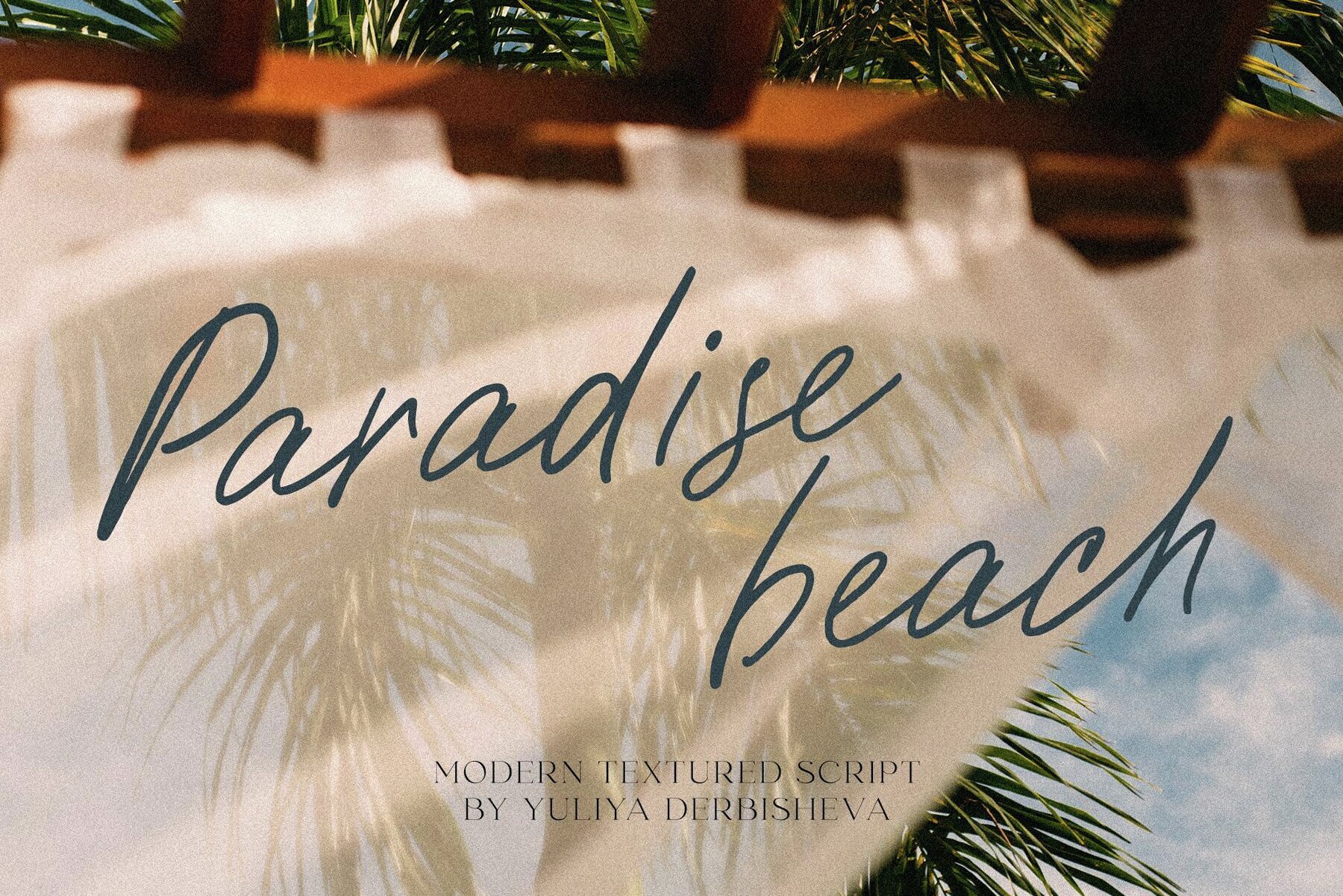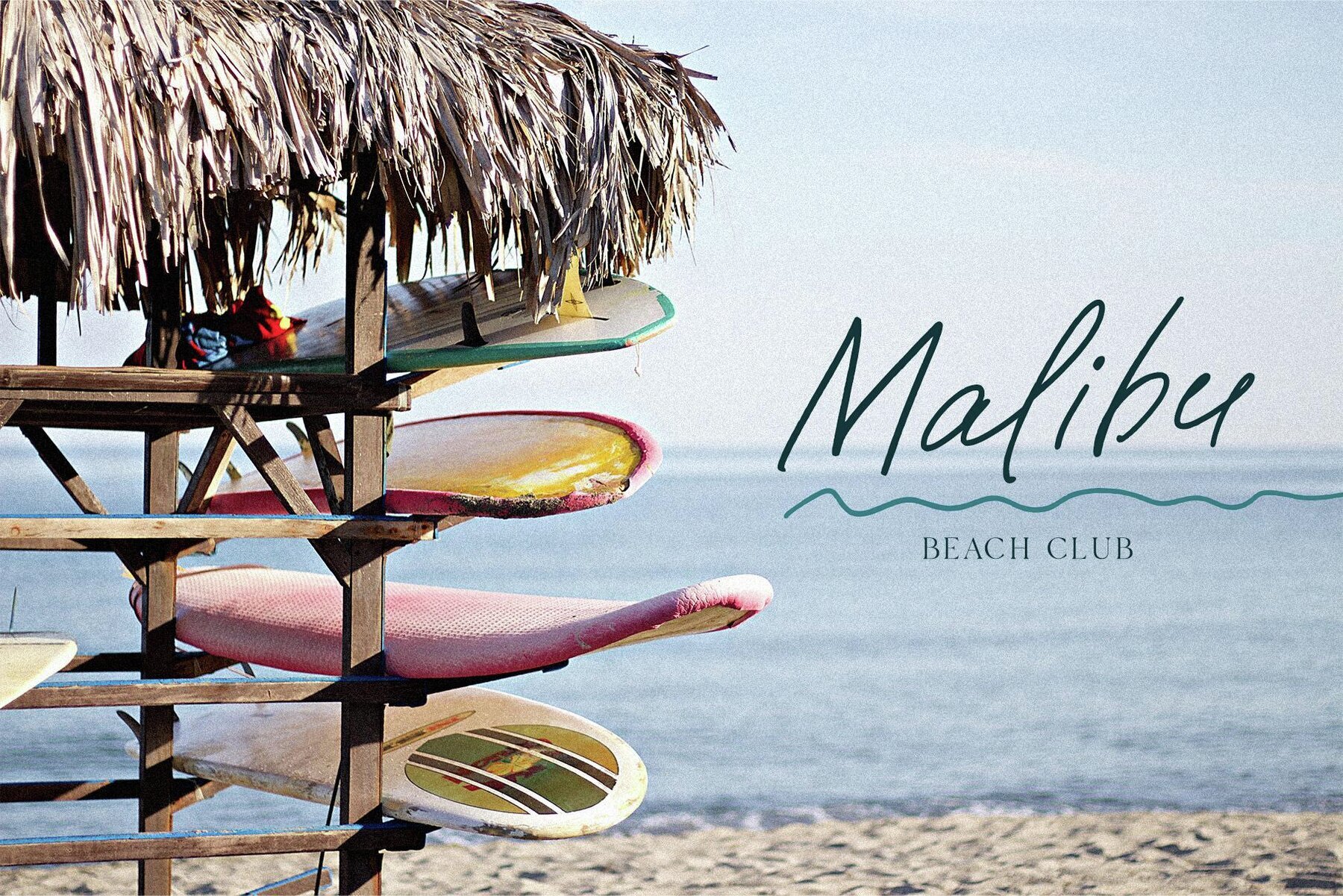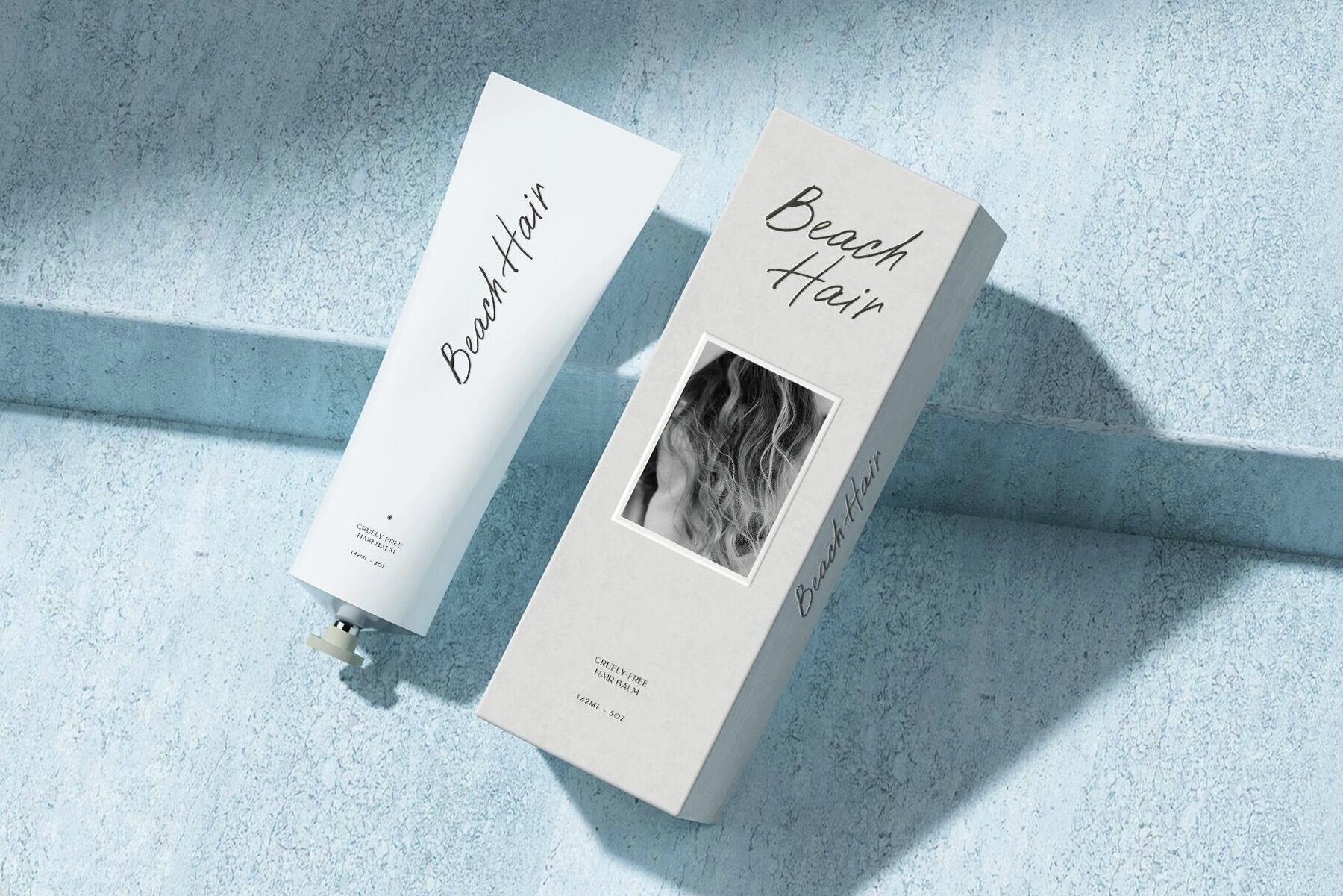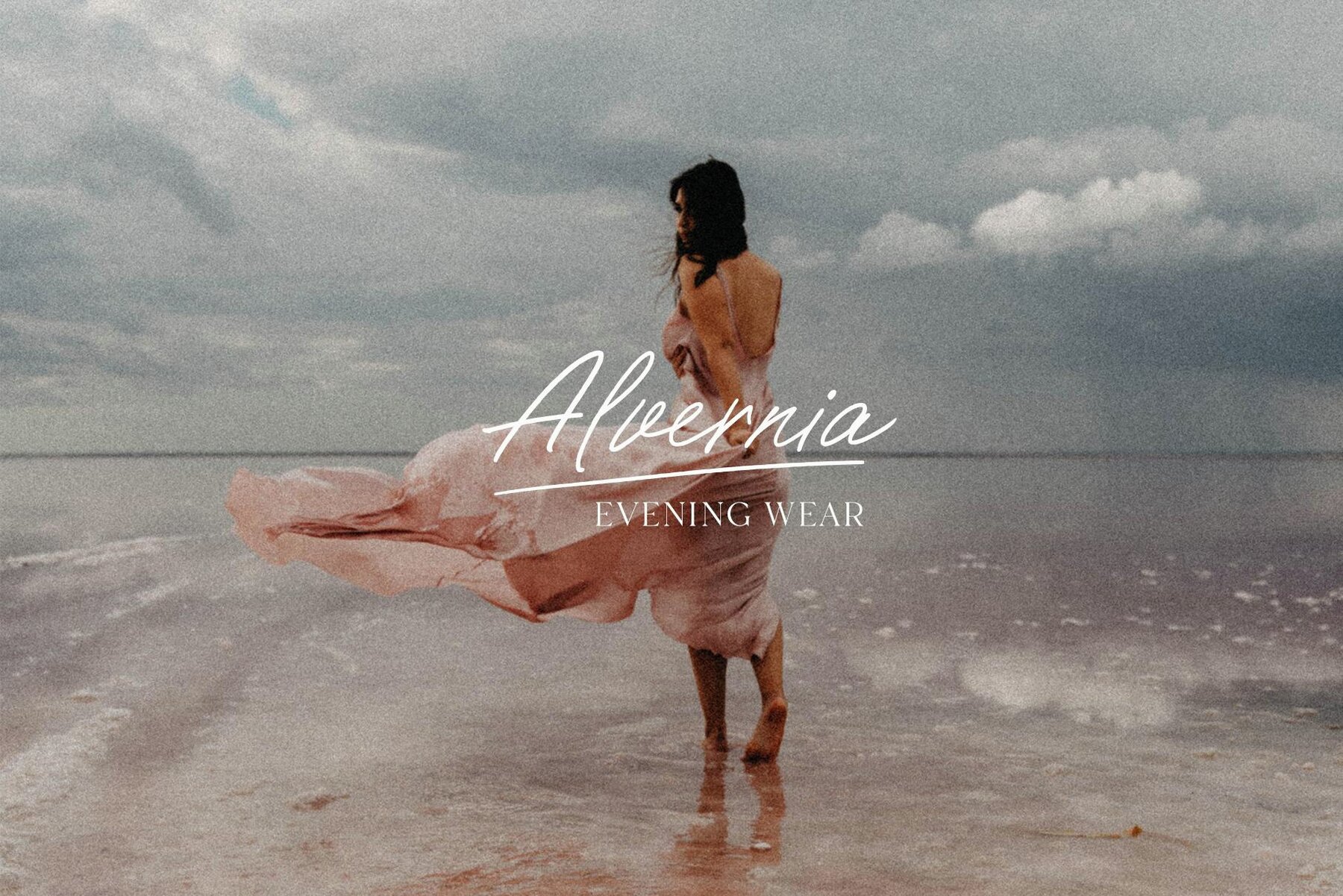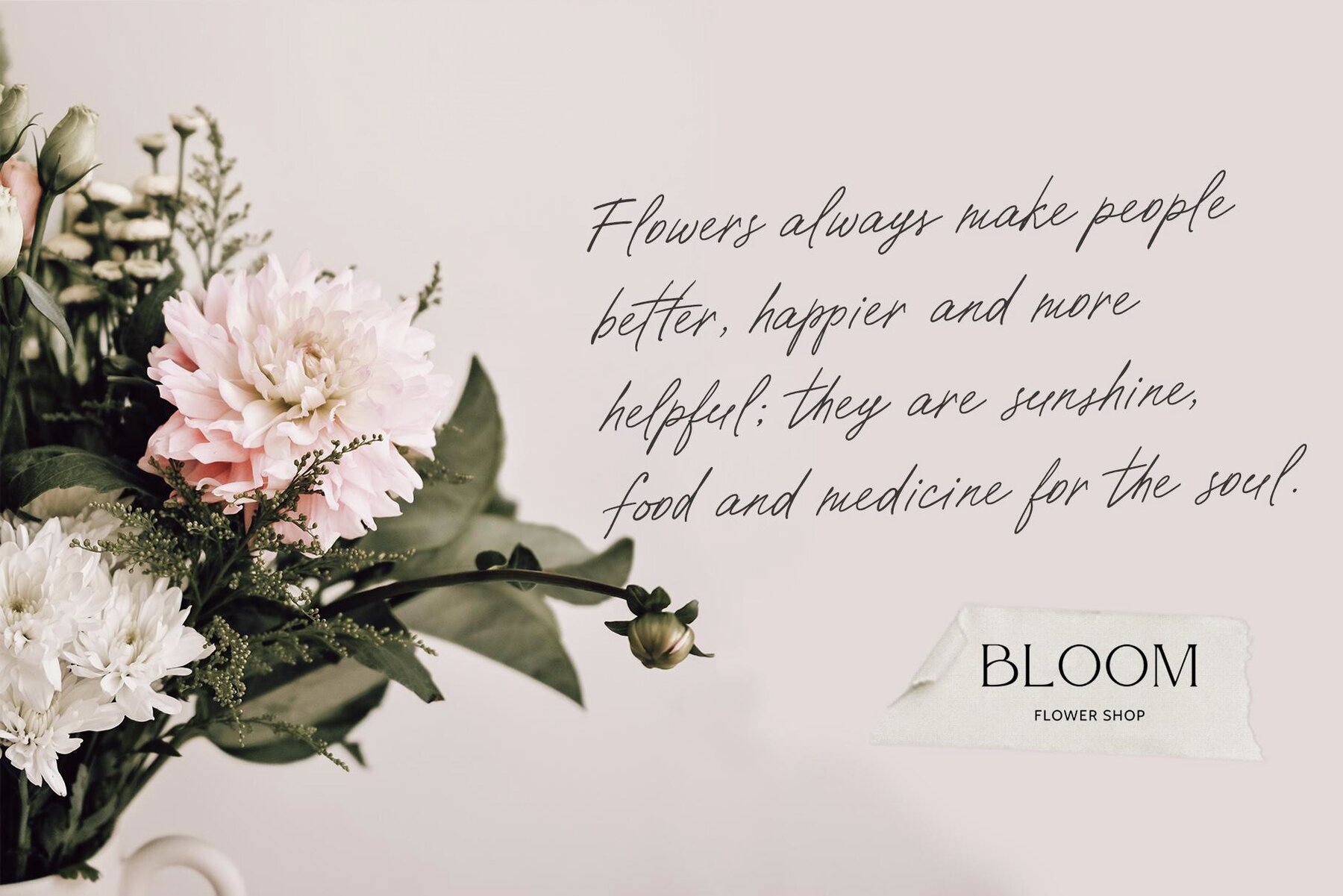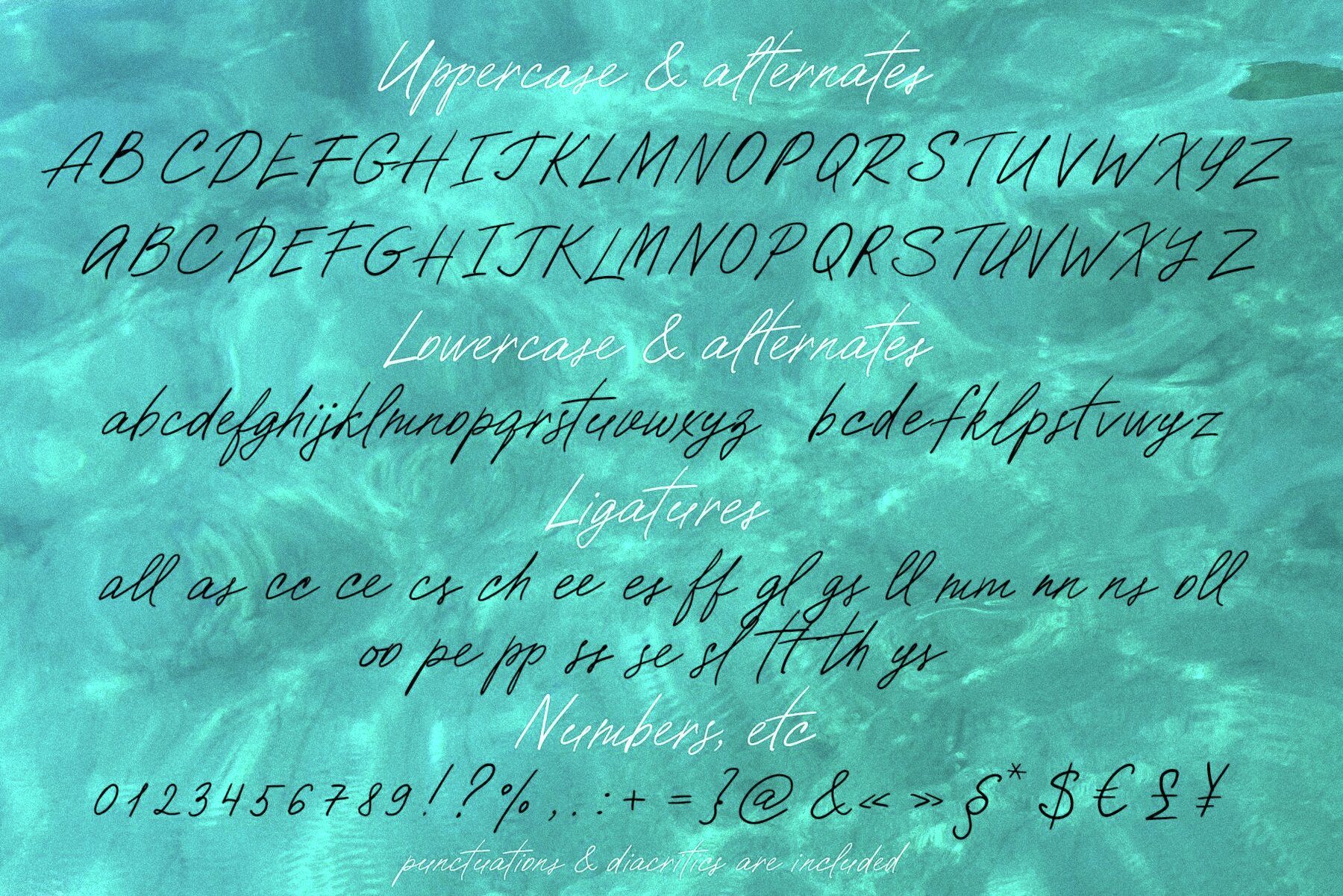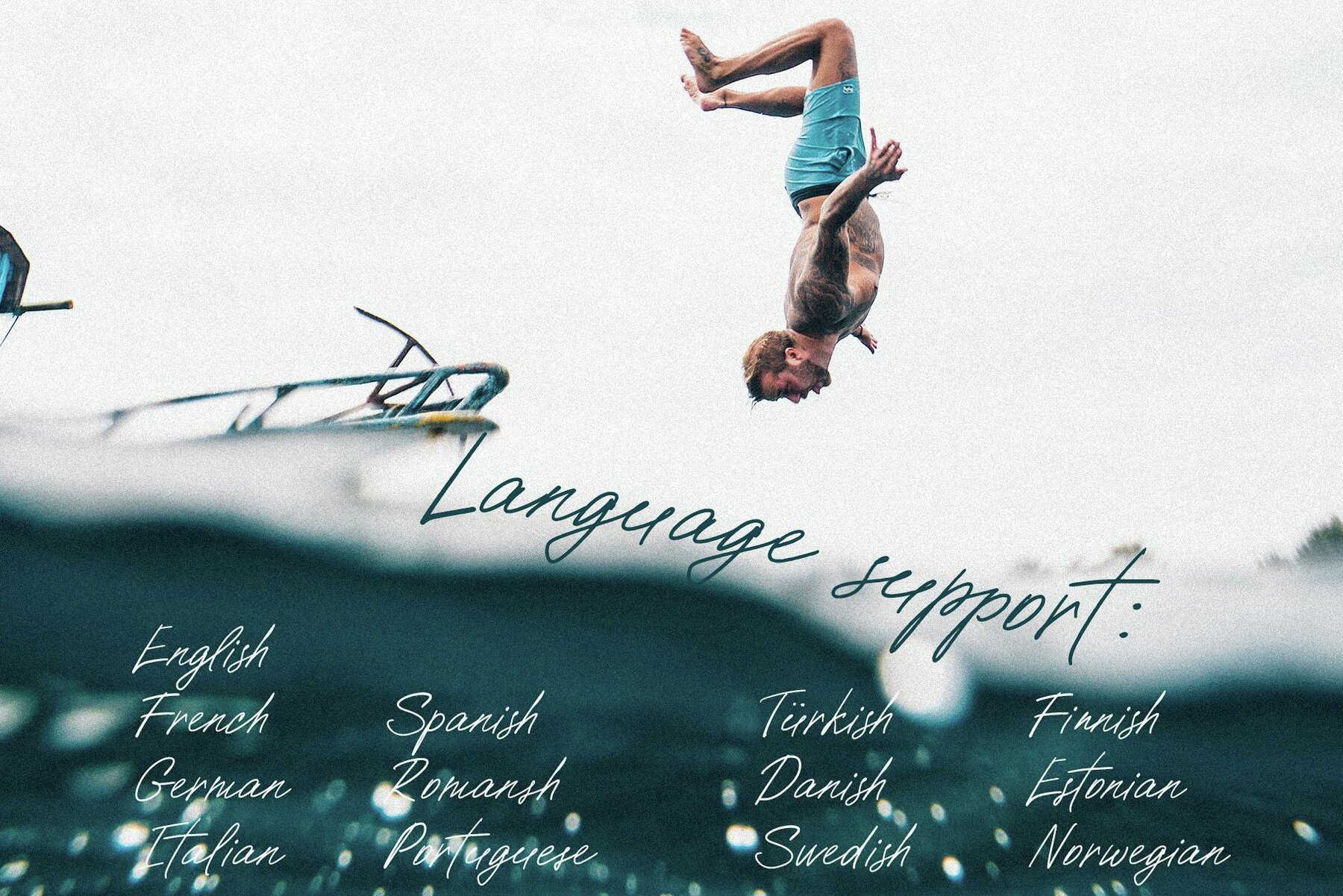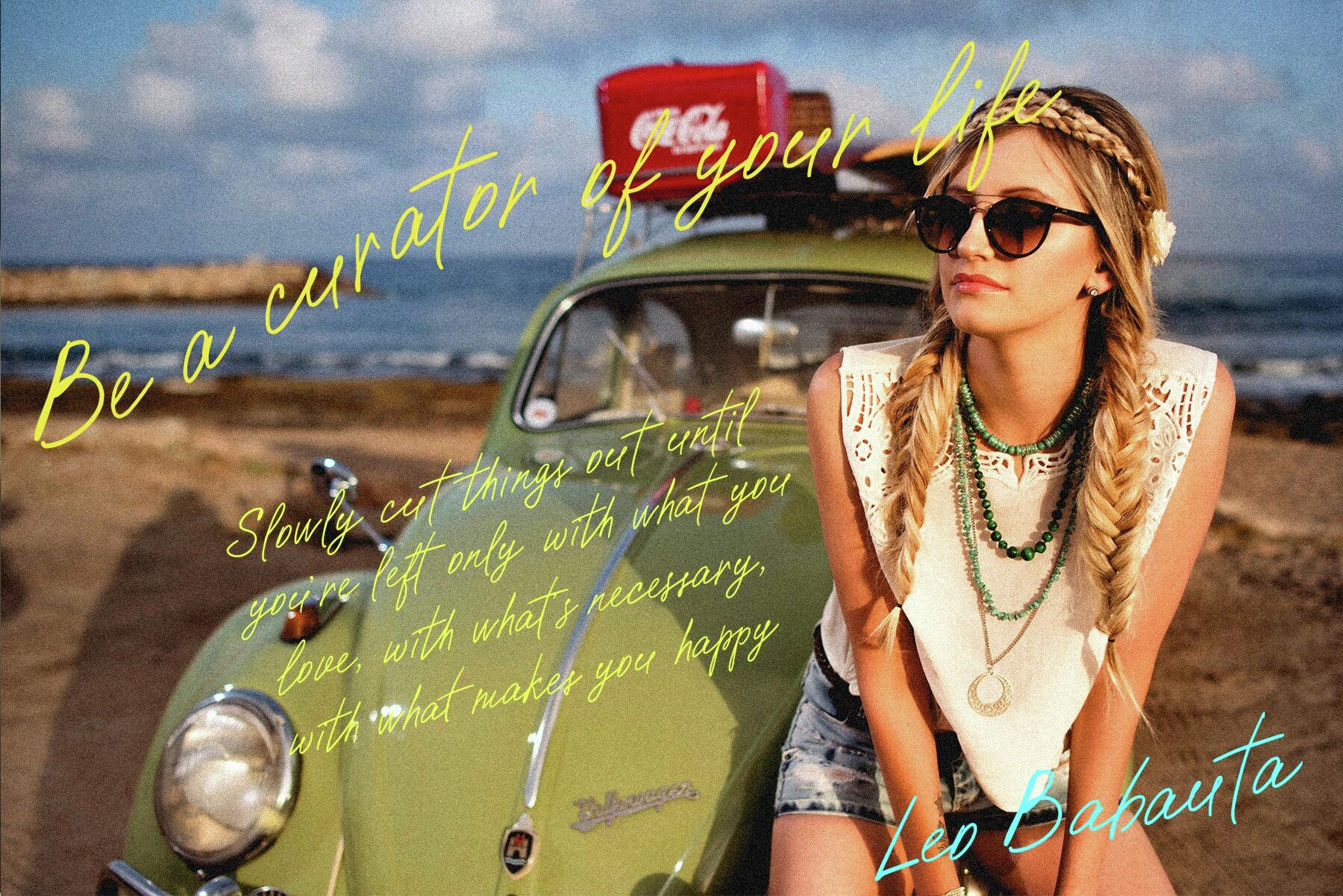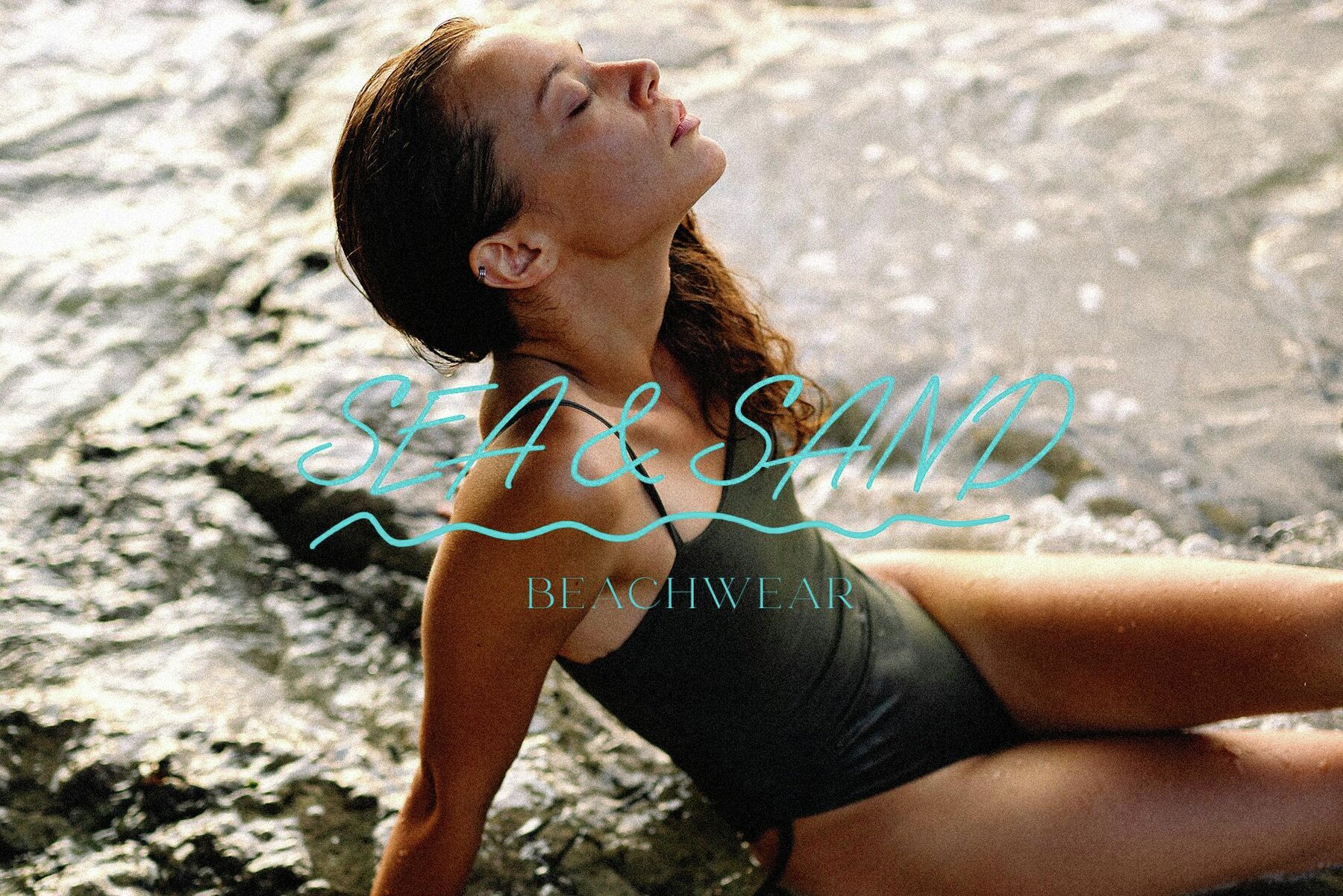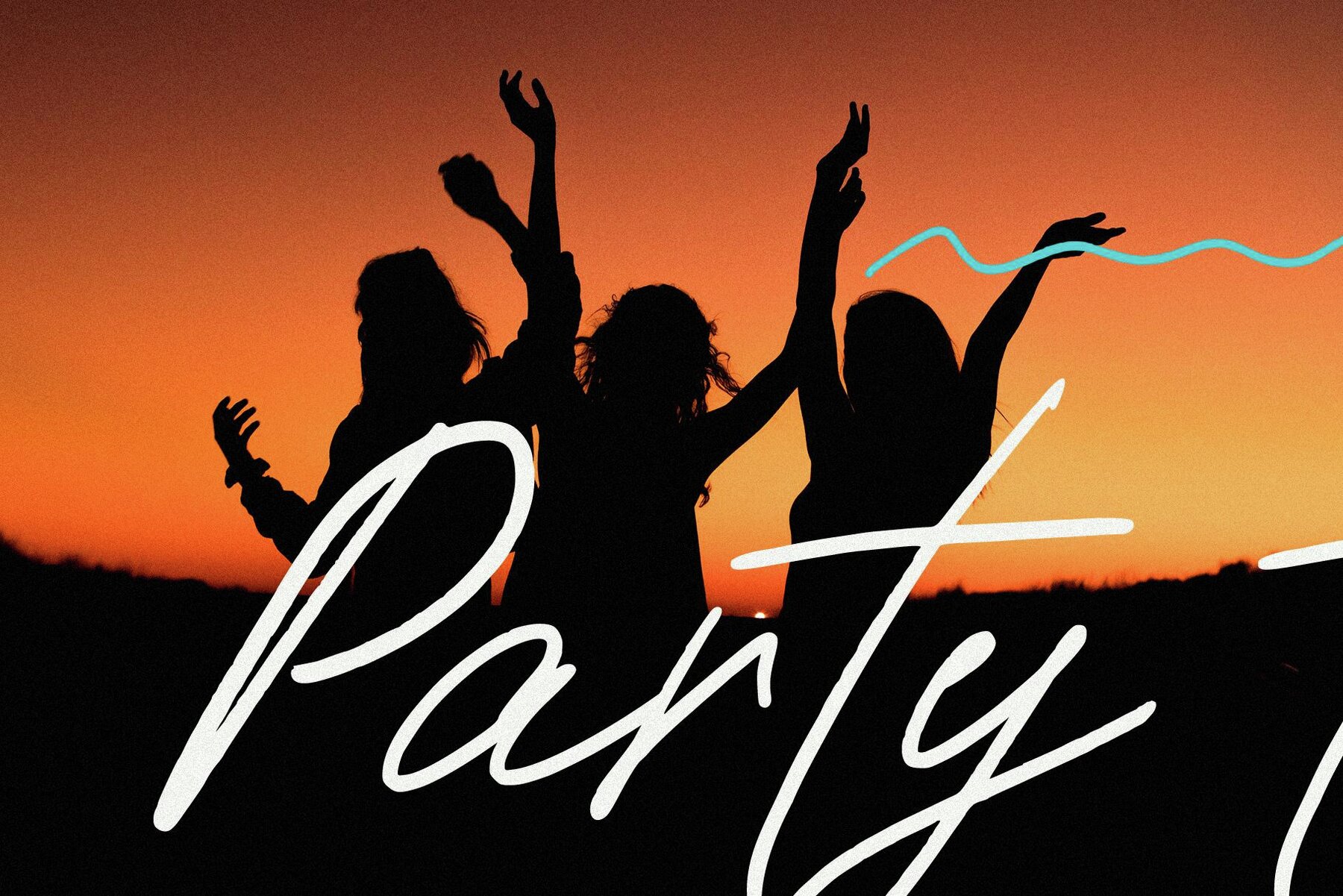
Paradise beach Font
Paradise Beach stands out as a beautiful handwritten script font with a modern texture. This typeface provides stylistic alternates for both uppercase and lowercase letters, alongside creative ligatures and line illustrations. Perfect for diverse design themes, it enhances logo design and packaging projects. Paradise Beach extends its versatility with comprehensive language support, covering English, French, German, Italian, Spanish, Portuguese, Danish, Norwegian, Swedish, Finnish, Estonian, Romansh, and Turkish. Please note that text and mockups are not included.Paradise Beach: Modern Textured Script Font